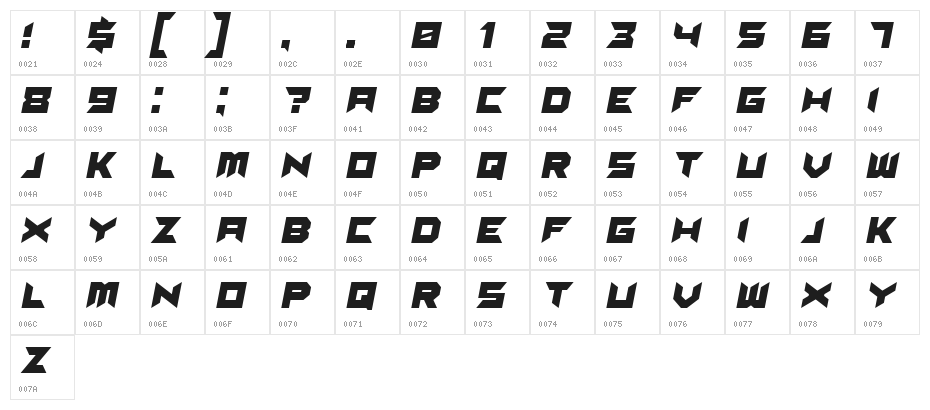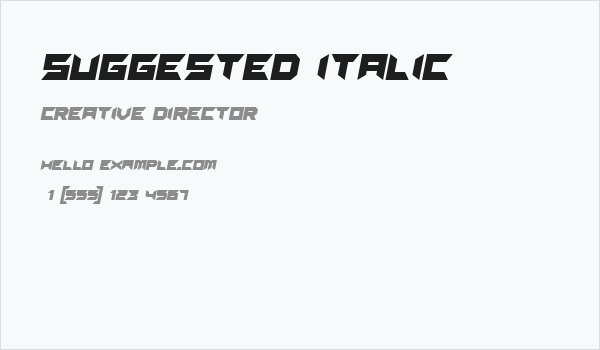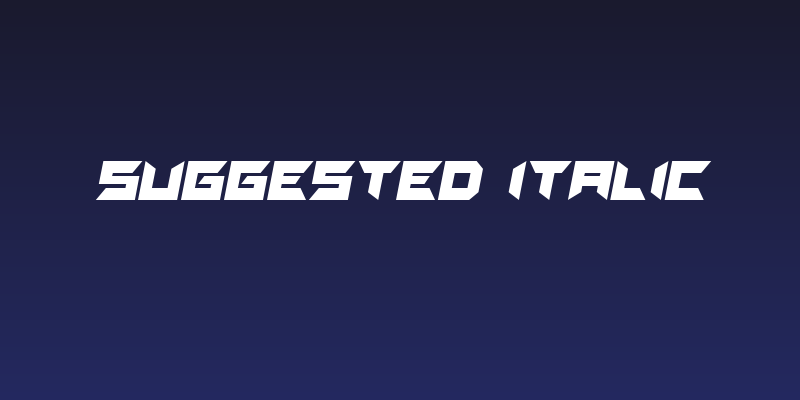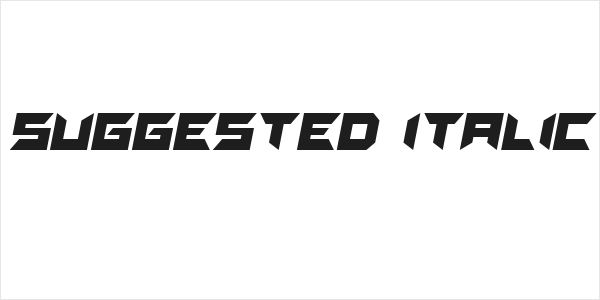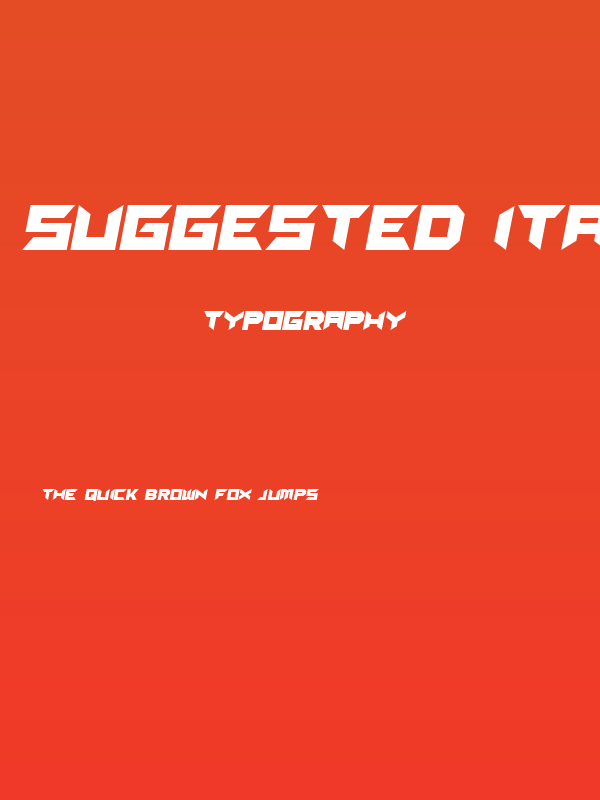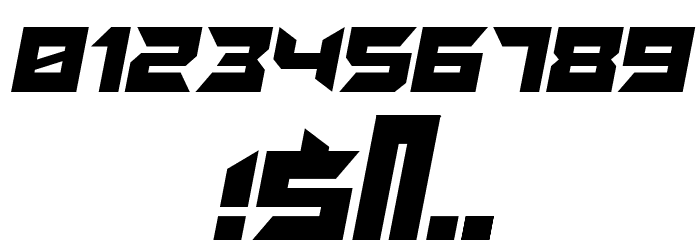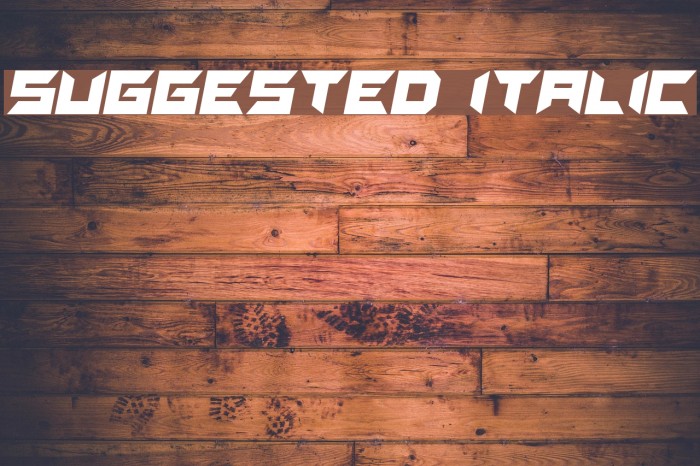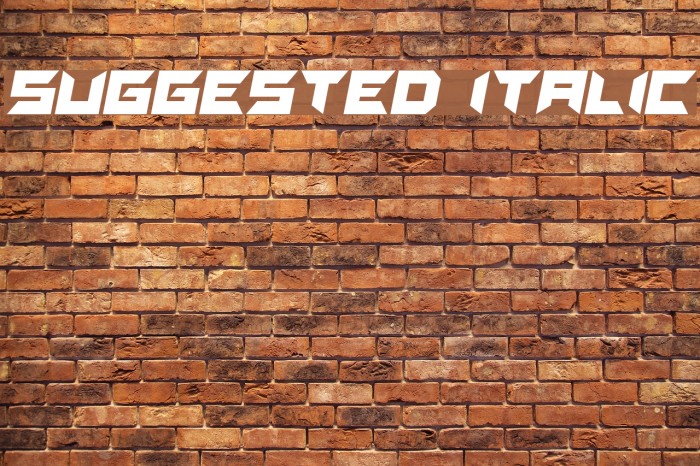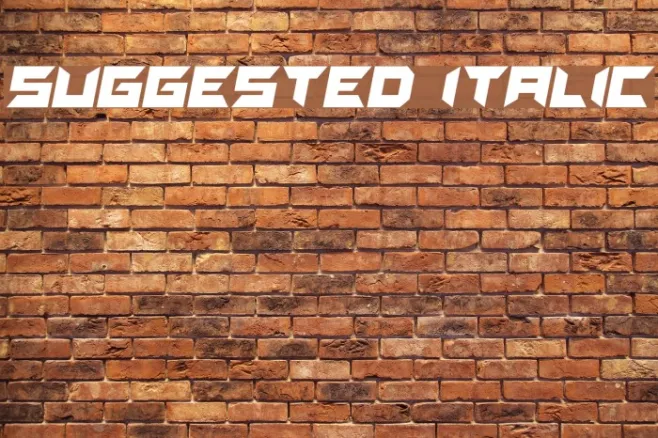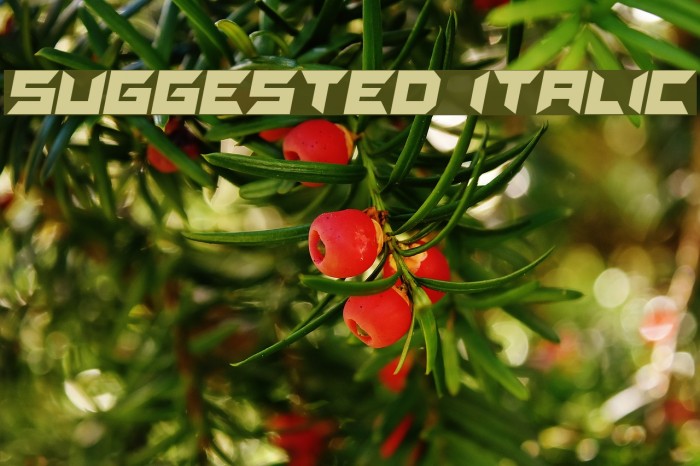
Suggested Italic Font
Suggested Italic Description
This font features a bold and dynamic design with a distinct italic slant, giving it a sense of motion and energy. The characters are angular and geometric, with sharp edges and a futuristic aesthetic. The uppercase and lowercase letters maintain a consistent style, while the numerals and special characters complement the overall design. The font's boldness and unique style make it suitable for attention-grabbing headlines and modern branding projects.
| Proposed Projects | Ideal for sports branding, video game titles, sci-fi themed posters, and dynamic logo designs. |